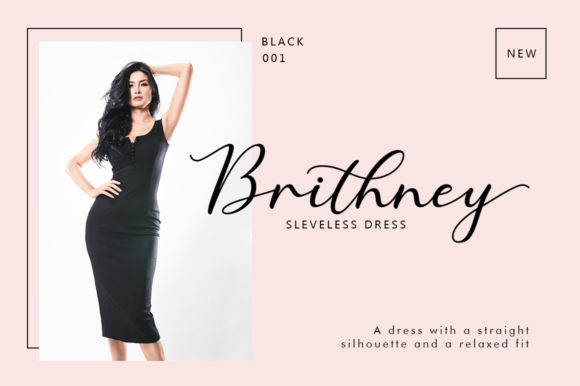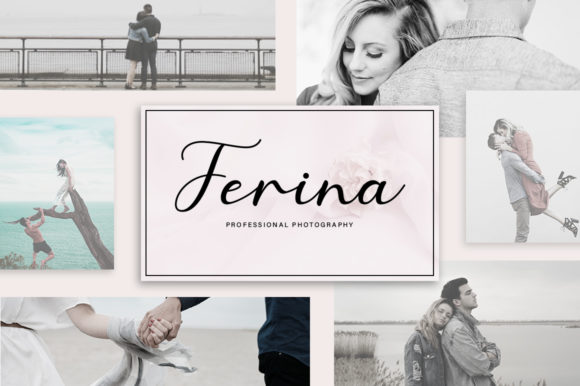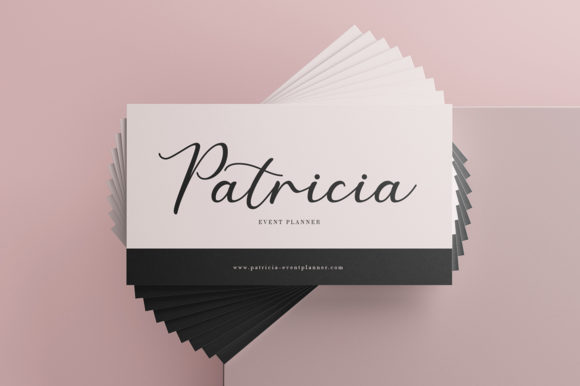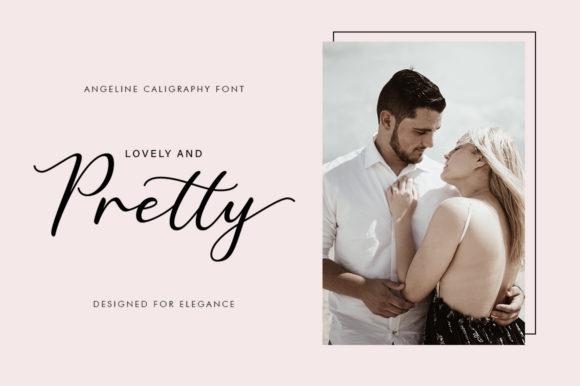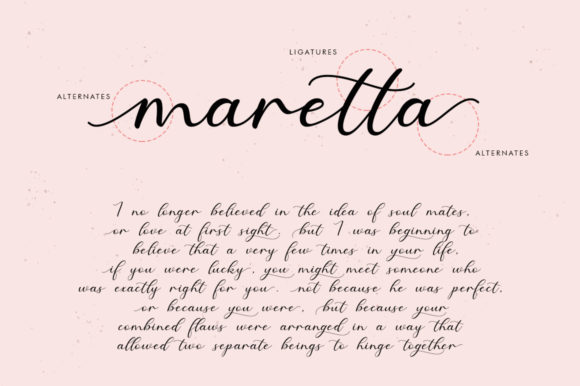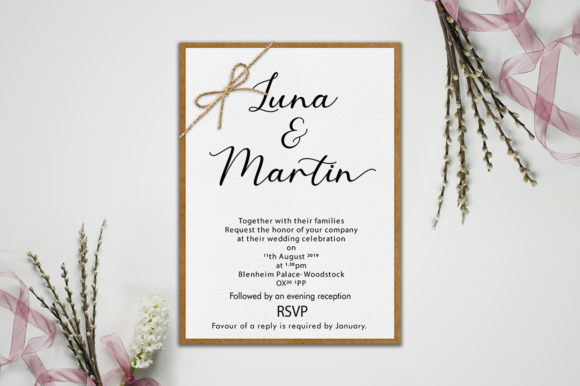
Unleash Your Creativity with Angeline Font
Have you ever found yourself staring at a blank page, feeling like your creativity has abandoned you? You know, that moment when you’re itching to create something beautiful, but your mind is a blank slate? For many crafters and designers, this is a familiar feeling. But what if I told you there’s a secret to unlocking your full creative potential?
Enter Angeline Font, the ultimate game-changer for your next crafting project. This versatile font is designed to help you bring your ideas to life with its stunning alternate characters. Whether you’re a seasoned crafter or a beginner, Angeline Font is the perfect companion to help you create unique and eye-catching designs.
As a designer, you’ll appreciate the value of Angeline Font’s flexibility and versatility. With its wide range of alternate characters, you can experiment with different styles and themes, making it an invaluable addition to your design toolkit.
Angeline Font Key Features
- Font Family: Angeline is a script font family, ideal for creative and elegant typography.
- Size: Angeline font family includes 6 weights, ranging from Light to Bold, with corresponding italic styles.
- Resolution: Optimized for high-resolution displays, with clear and crisp rendering at 300 DPI and above.
- Unique Characteristics: Angeline features flowing connections, swashes, and ligatures that create a handwritten feel, making it perfect for invitations, logos, and branding materials.
- Language Support: Supports a wide range of languages, including Latin, Greek, Cyrillic, and many more, making it a versatile choice for international projects.
Angeline Font Review
Overall, I was quite impressed with the Angeline Font, and I’ll highlight what works well. ✨ The font’s elegant and refined design makes it perfect for luxury brands, high-end products, and even formal invitations. The flowing curves and subtle flair at the ends of the letters create a sophisticated look that’s hard to resist.
- ✨ Elegant and refined design suitable for luxury brands
- ✨ Perfect for formal invitations, high-end products, and upscale branding
- ✨ Unique and distinctive flair at the ends of the letters
However, there are a few limitations to consider. ⚠️ The font may be too ornate for some designs, and its complexity can make it difficult to read in smaller font sizes. Additionally, the font’s elegance may be lost if paired with overly bold or busy designs.
- ⚠️ May be too ornate for simpler designs
- ⚠️ Complexity can make it difficult to read in smaller font sizes
- ⚠️ May be overwhelmed by bold or busy designs
Overall, I think Angeline Font is a solid choice for designers who need a sophisticated and elegant font for their projects. While it may have some limitations, its unique design and versatility make it a valuable addition to any font library.
The Angeline font is ideal for use in:
– Baby shower invitations and decorations
– Personalized gifts and home decor items
– Social media graphics and advertisements
Tips for Getting the Most Out of the Angeline Font
For the best results, use the Angeline font in combination with elegant and cursive-style graphics and decorations. Experiment with different font sizes and styles to create a unique and eye-catching design.
Alternatives to Angeline Font
Great Vibes is a beautiful, elegant script font that is perfect for creating a whimsical and romantic atmosphere. It’s ideal for use in wedding invitations, greeting cards, and other creative projects where a touch of sophistication is needed.
Compared to Angeline Font, Great Vibes has a more fluid and organic feel, making it a great choice for projects that require a softer, more feminine touch.
Carolyna Pro is a modern, elegant script font that is perfect for creating a sophisticated and luxurious atmosphere. It’s ideal for use in high-end branding, advertising, and other creative projects where a touch of glamour is needed.
What is the recommended font size range for Angeline?
The recommended font size range for Angeline is 10-48 points, allowing for clear readability in various design contexts, from small captions to large headlines.